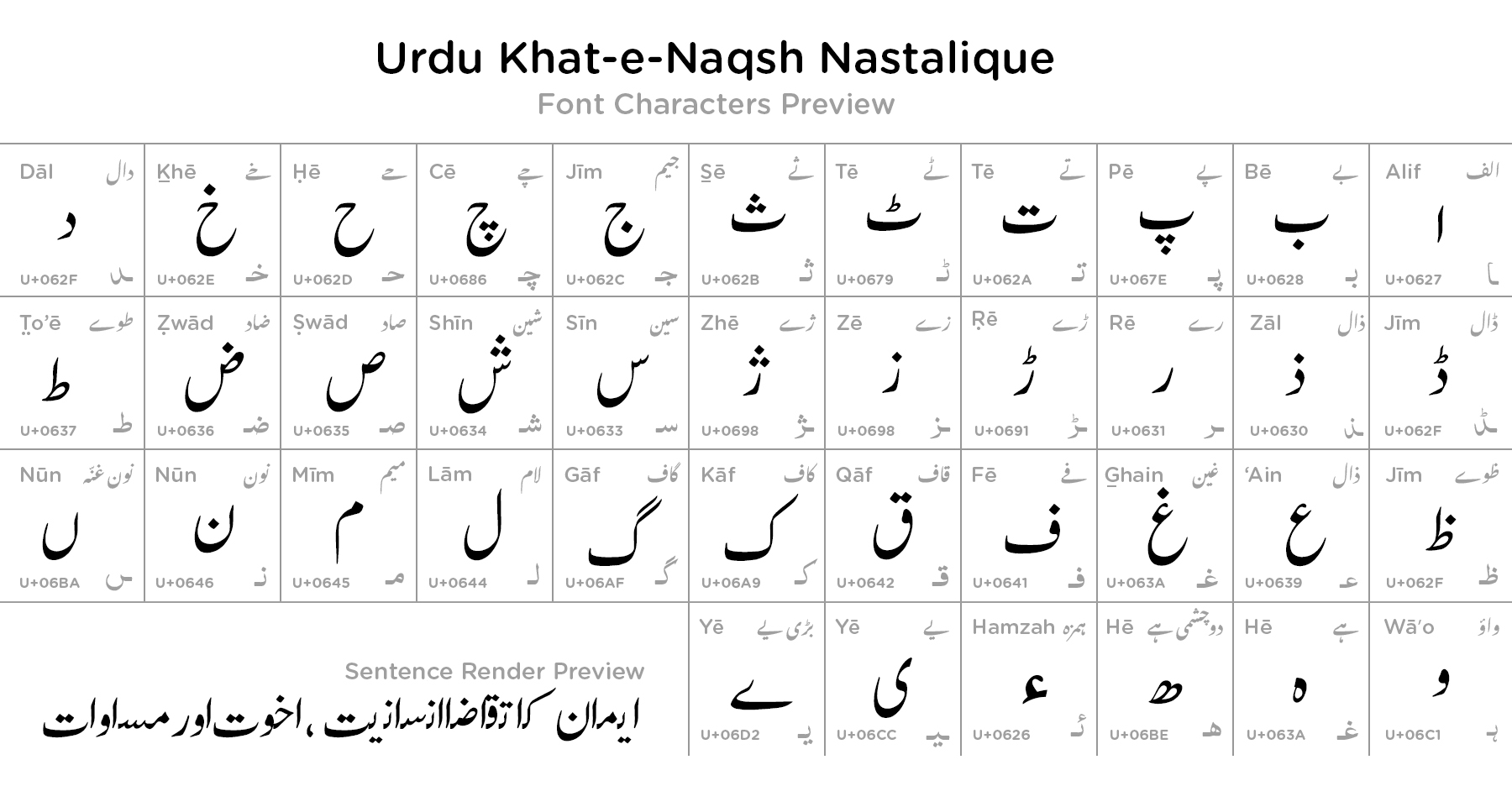
Urdu Khat-e Naqsh Nastalique is an impactful Urdu font crafted by font designer Shehzad Ashiq Ali, a Pakistani designer from Lahore. Consisting of 193 glyphs and 192 characters and symbols, the font features wide and slanted letters, evoking a traditional Nastaliq calligraphic style. The font is compatible with Urdu, Arabic, Latin, Persian, and more languages, which makes it highly diverse and appealing. Its bold nature and thick, dynamic strokes make it best suited for short text applications where titles require impact. Despite its thick and sturdy nature, the font maintains high legibility even at smaller resolutions.
With a single regular font-weight, Urdu Khat-e Naqsh Nastalique may have limited adaptability, but its thick and rounded curves, soft-filled letterforms, and two-tipped elongated terminals remind us of the traditional hand-made calligraphy. Moreover, with the compatibility of some Unicode standards, it integrates smoothly with various design tools and platforms. It gives tradition with modernity, making it an ideal choice for various projects seeking a sleek and dominant Urdu font style. It is perfect for branding, creative logos, advertising, unique book cover titles, impressive headings, and more, where a touch of elegance with impact is required.